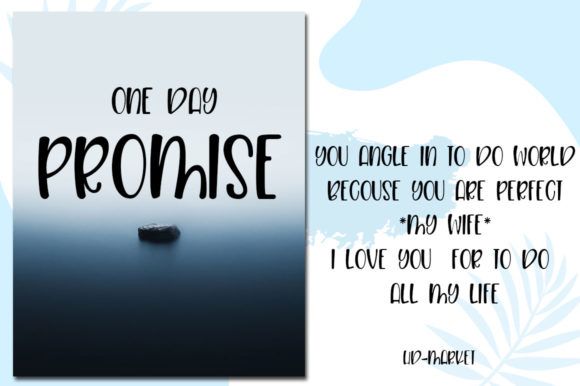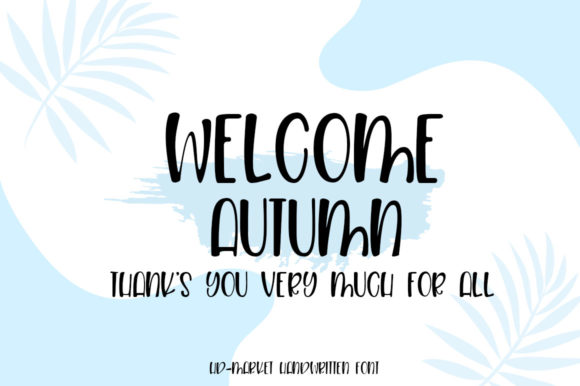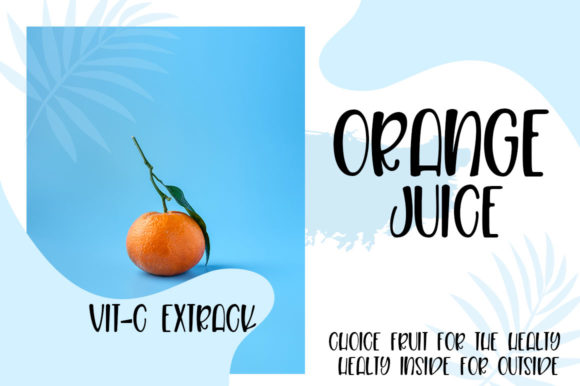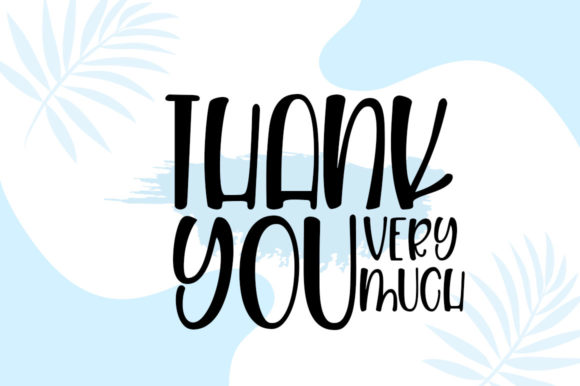
About Rumble Font
Rumble is a sweet and quirky handwritten font. Incredibly versatile, this font fits a wide variety of designs. Add it to your most creative ideas and notice how it makes them come alive.